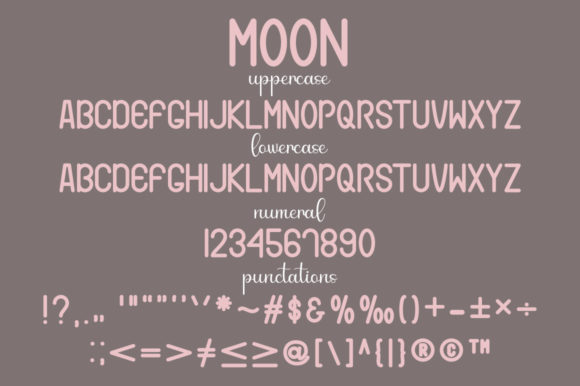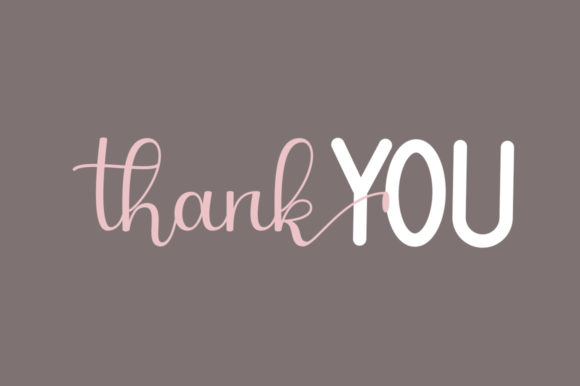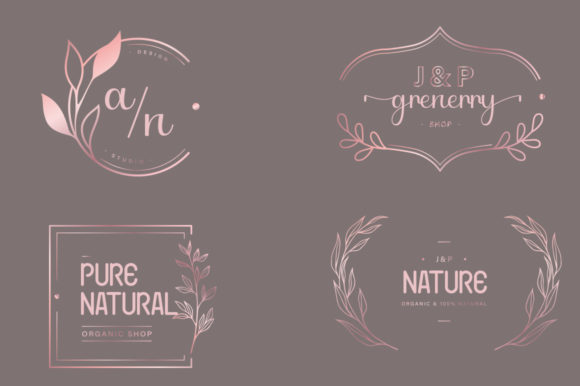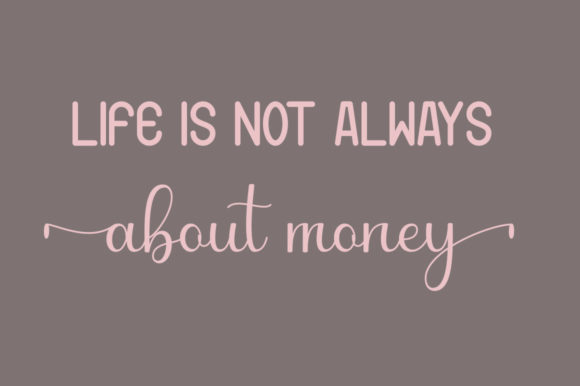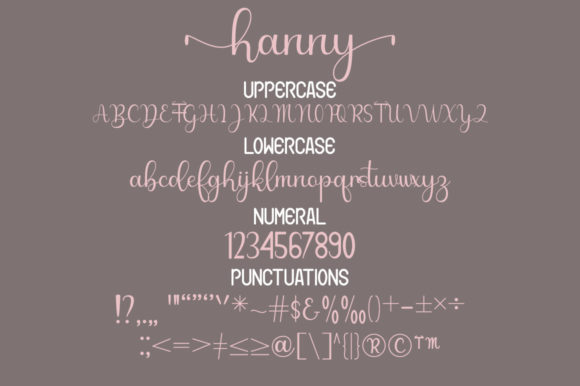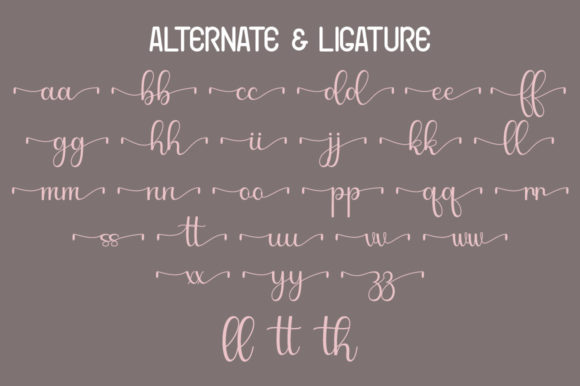
Introduction to Moon Font
There’s something magical about a design project that comes together just right – the perfect balance of colors, shapes, and textures. For designers, those moments are what make all the hard work worth it. And what better way to enhance that magic than with the perfect font? Enter Moon Font, a lovely handwritten font featuring well-rounded characters and a stylish vibe that’s sure to elevate any creative project.
Moon Font is more than just a design resource – it’s a valuable tool for designers looking to add a touch of whimsy and personality to their work. With its light and approachable style, it’s perfect for a wide range of applications, from wedding invitations to social media graphics. And the best part? It’s free to download, making it an accessible and high-quality addition to any designer’s toolkit.
Whether you’re working on a complex design project or just need a little inspiration, Moon Font is sure to deliver. With its transparent background and range of glyphs and swashes, it’s the perfect choice for designers looking to add a little extra flair to their work.
Key Features of Moon Font
- High-quality, elegant design suitable for creative projects
- Includes multiple font weights and styles, providing flexibility for designers
Honest Review: Moon Font
Moon Font is a beautifully crafted design resource that has caught my attention. It’s perfect for any creative project that requires a touch of elegance and sophistication. The font itself is high quality, with a unique and delicate design that’s sure to add a personal touch to your work.
What works well: ✨ The font’s transparent background makes it easy to use on a variety of backgrounds, and the free download is a major bonus for designers on a budget. The design is also highly customizable, allowing you to adjust the size, color, and style to suit your needs.
However, there are some limitations: ⚠️ The font is not suitable for all types of projects, particularly those that require a bold or loud design. Additionally, some users may find the font’s delicate design to be too subtle or easy to overlook.
Overall, I’m impressed with Moon Font’s quality and versatility. While it may not be the best fit for every project, it’s definitely a valuable addition to any designer’s toolkit. If you’re looking for a high-quality, free design resource to elevate your creative project, Moon Font is definitely worth checking out.
- Customizable design
Moon Font
Tips for Getting the Most Out of Moon Font
To use Moon Font effectively, consider the following tips:
- Pair Moon Font with a transparent background for a clean and minimalist look.
- Combine Moon Font with other design elements for a cohesive and professional design.
Moon Font is commonly used for:
- Print materials and promotional items